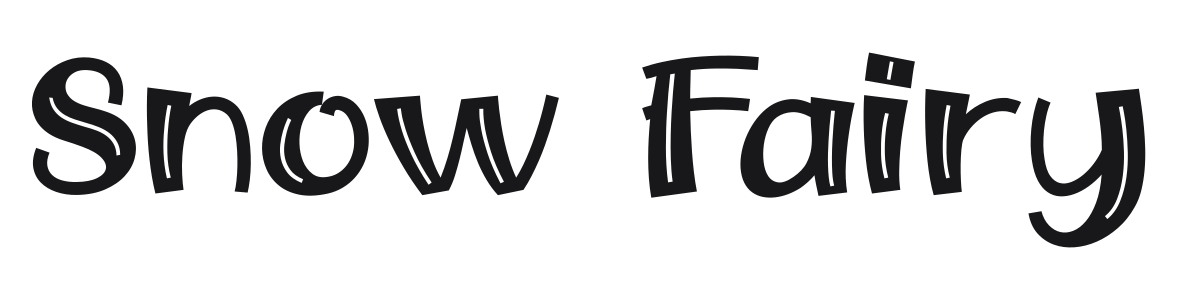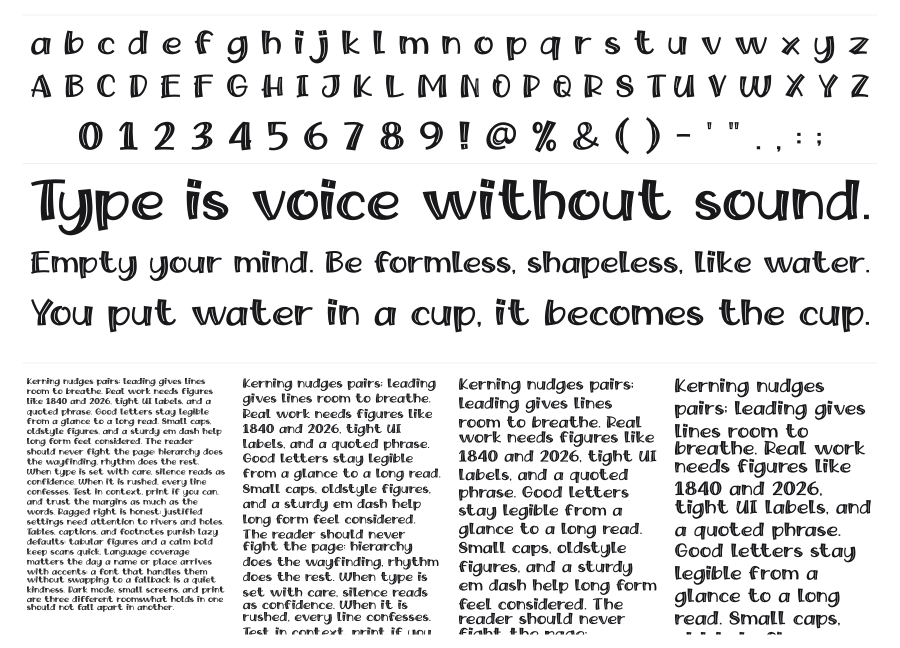
Snow Fairy
Snow Fairy is a bold casual display font with chunky rounded strokes and a hand-drawn, storybook quality. The slightly irregular letter shapes and notched terminals give it a spontaneous, childlike energy that feels warm rather than sloppy. Works well at large sizes for children's branding, packaging, and playful headlines.